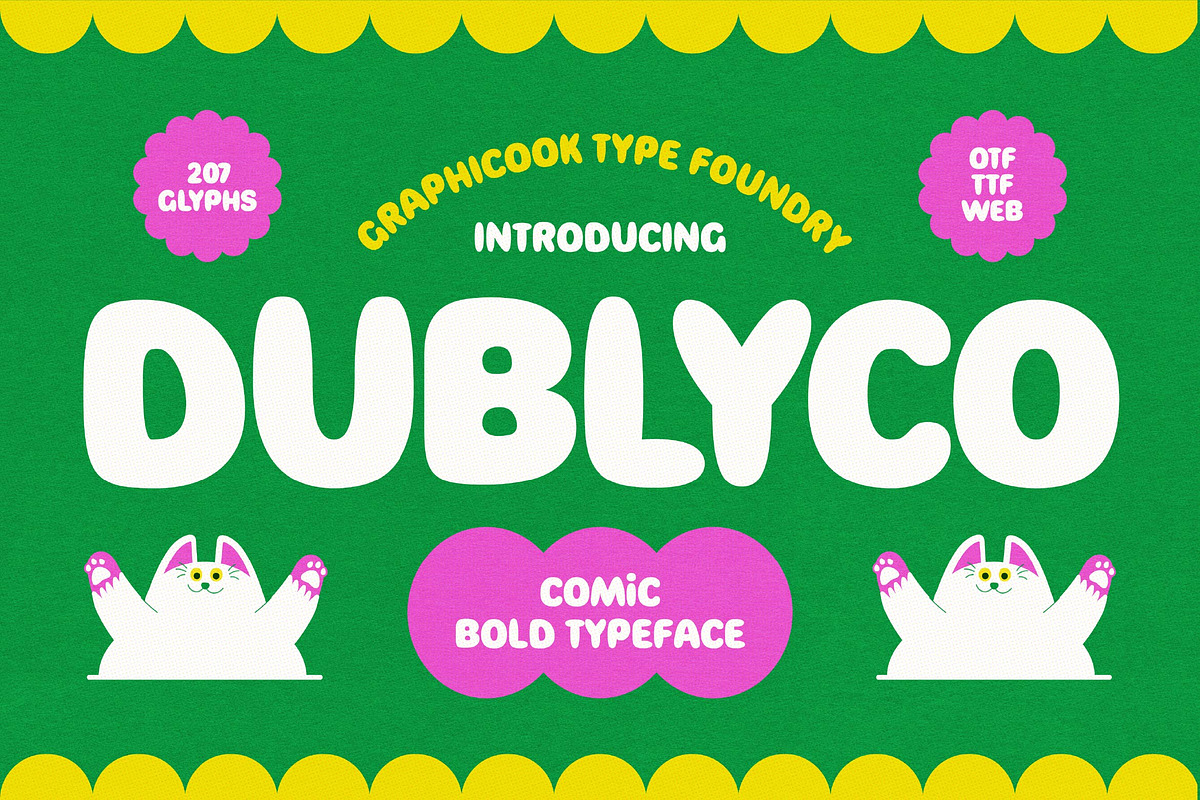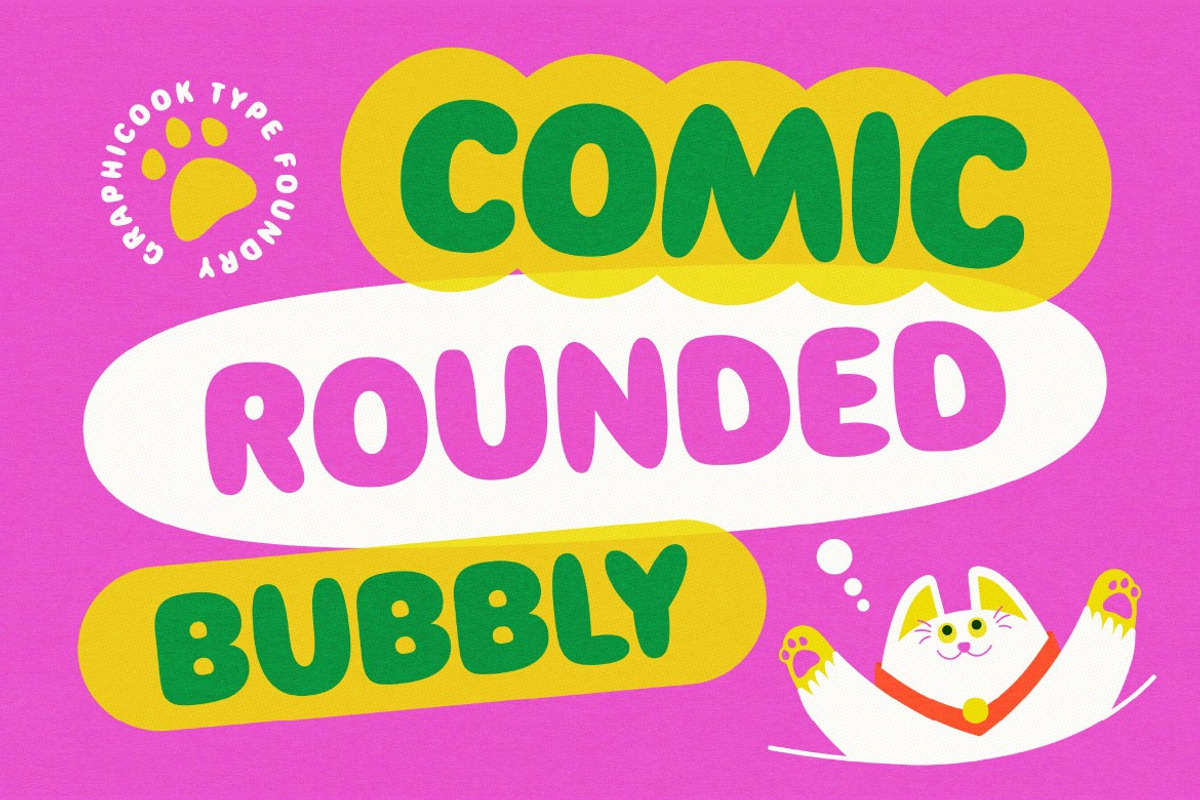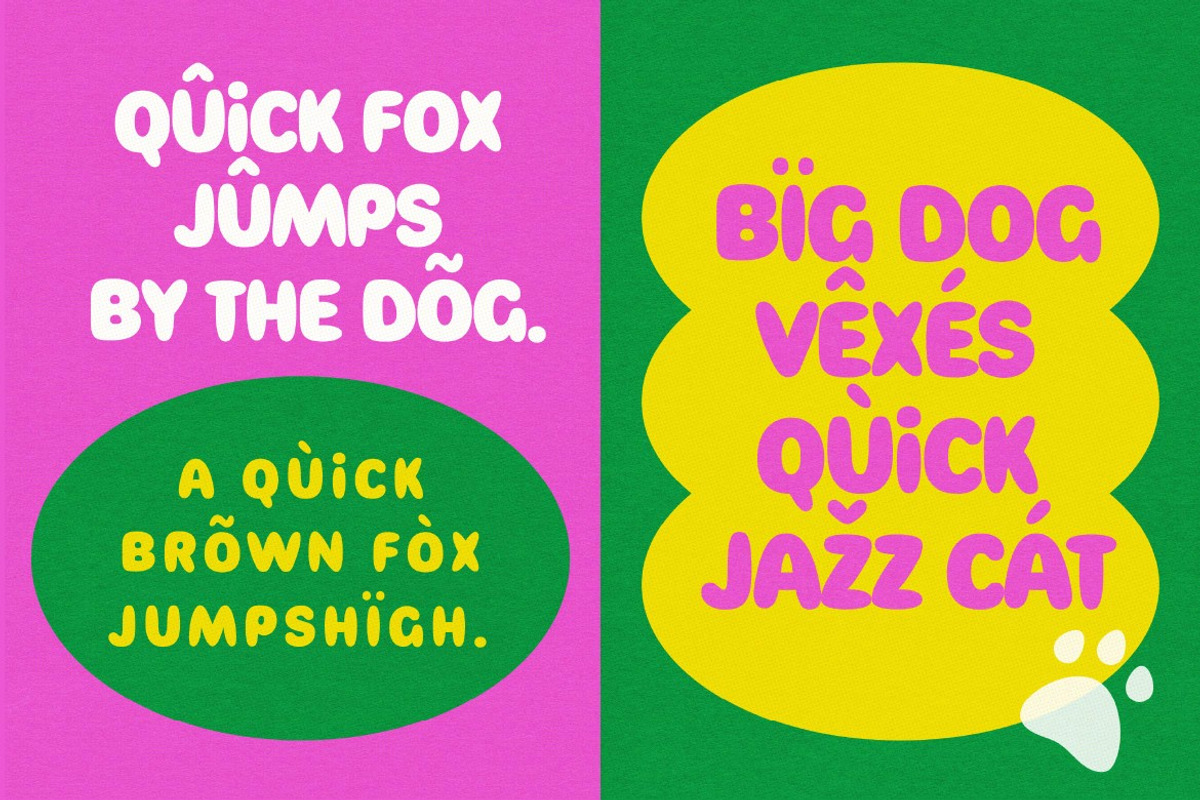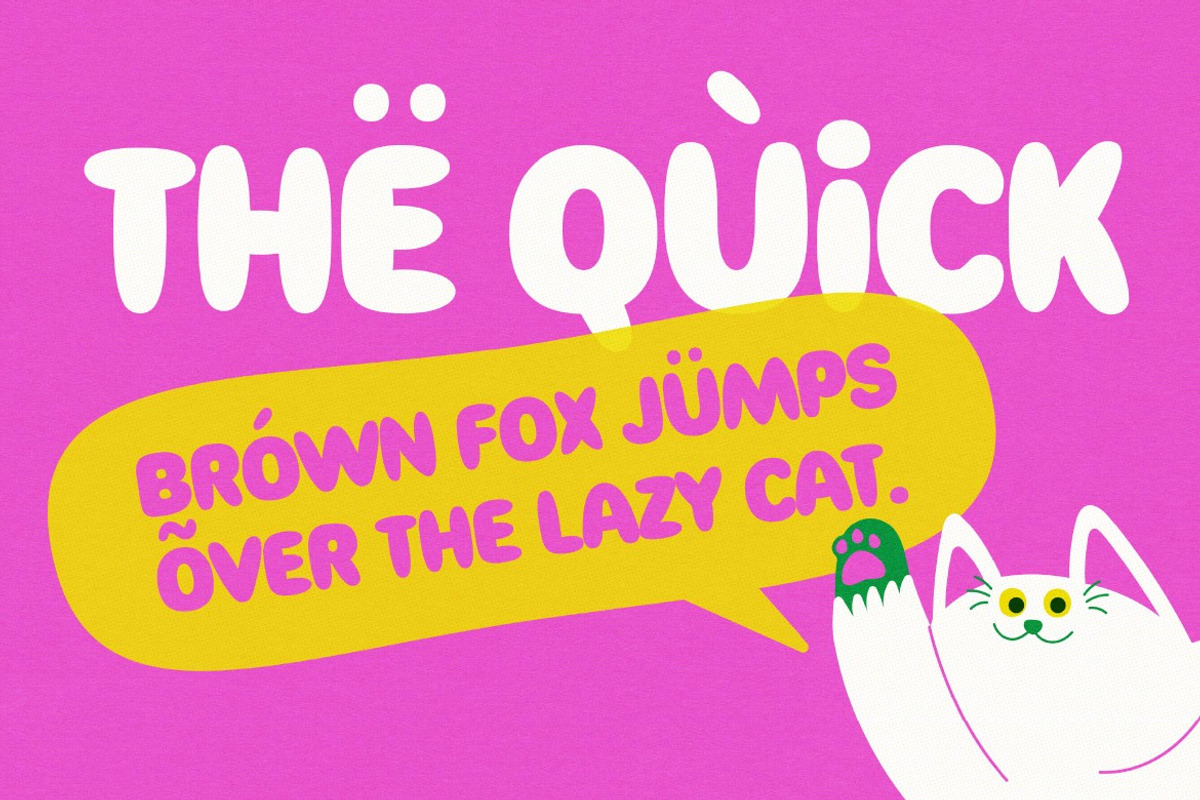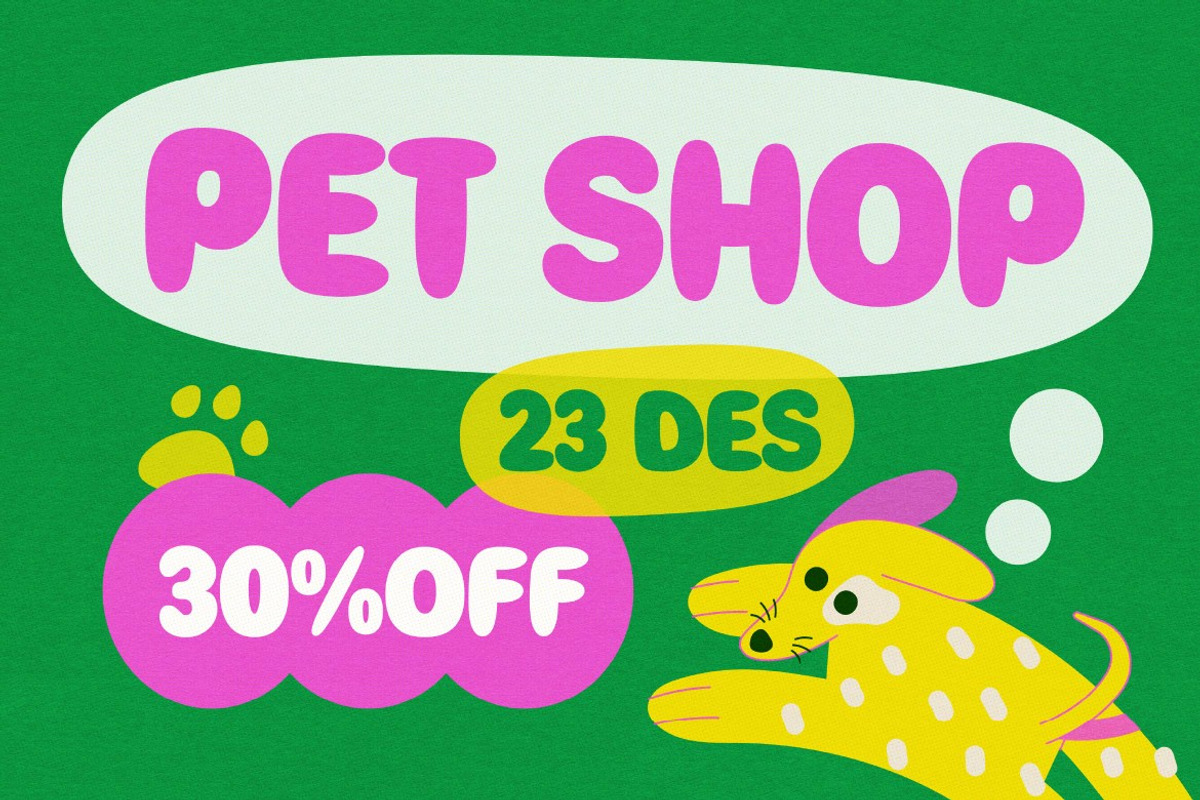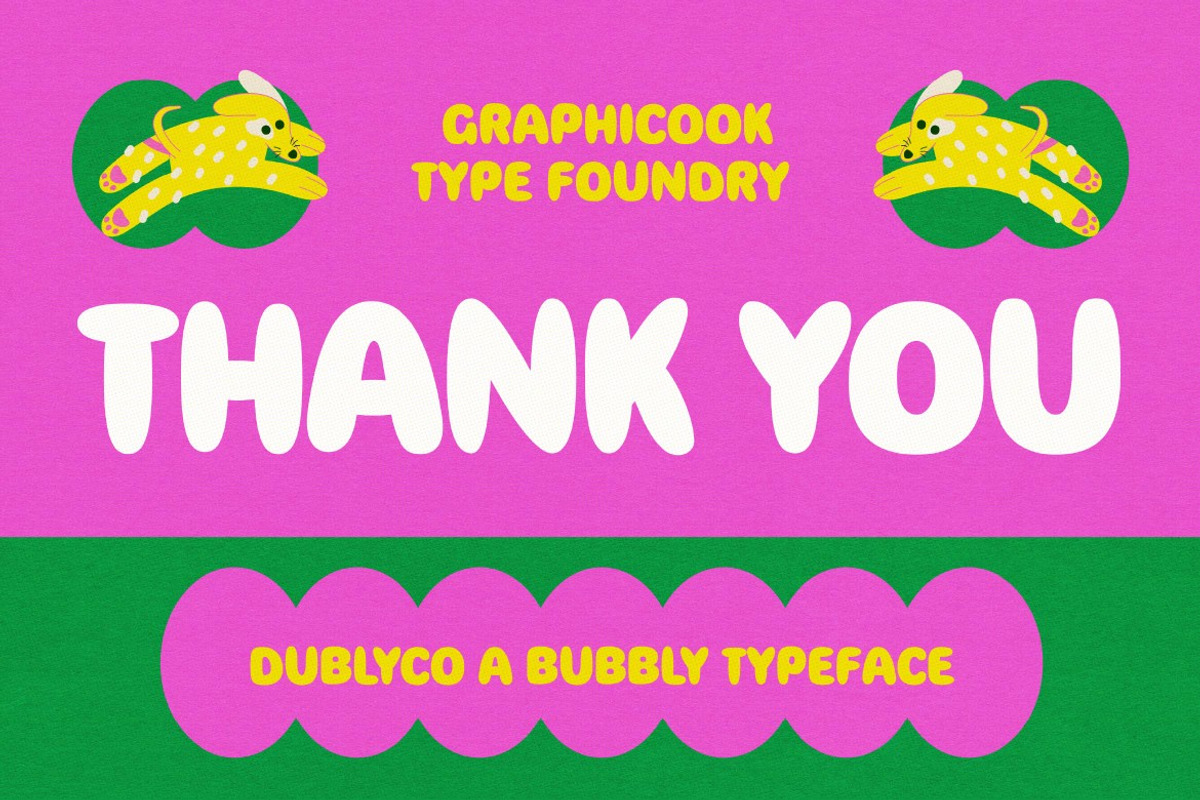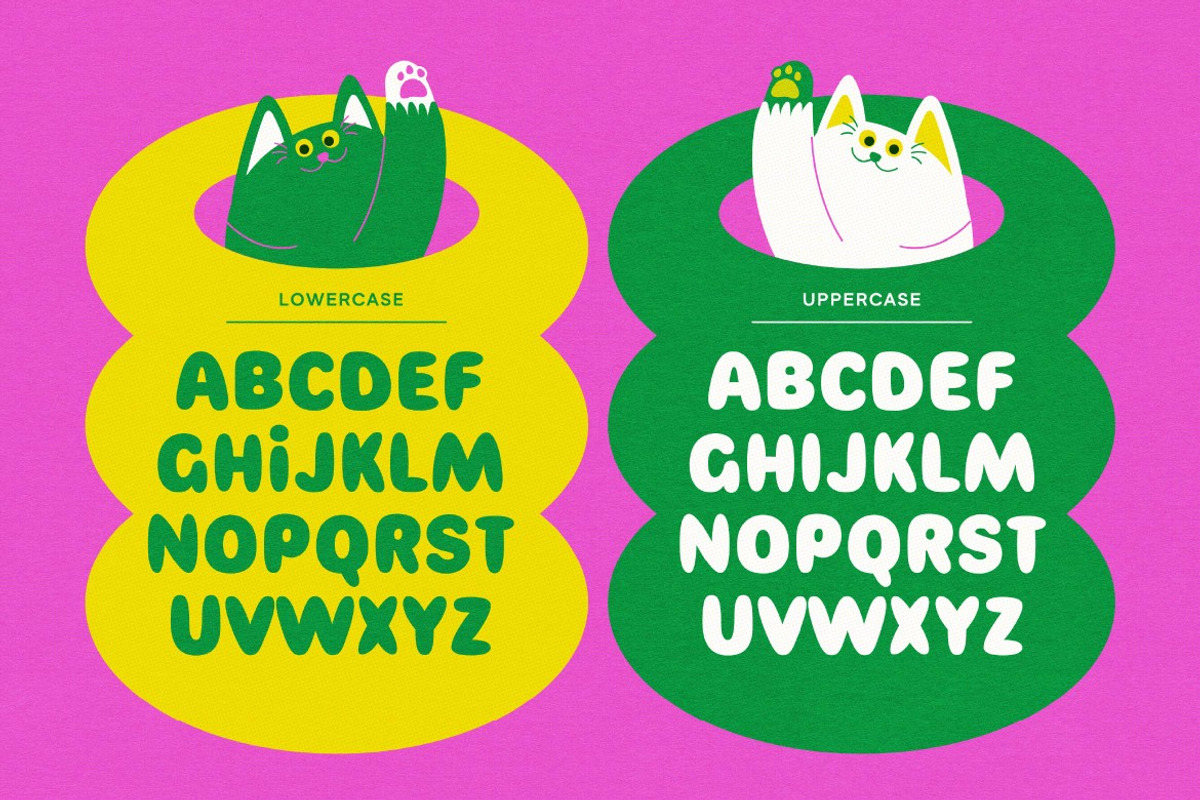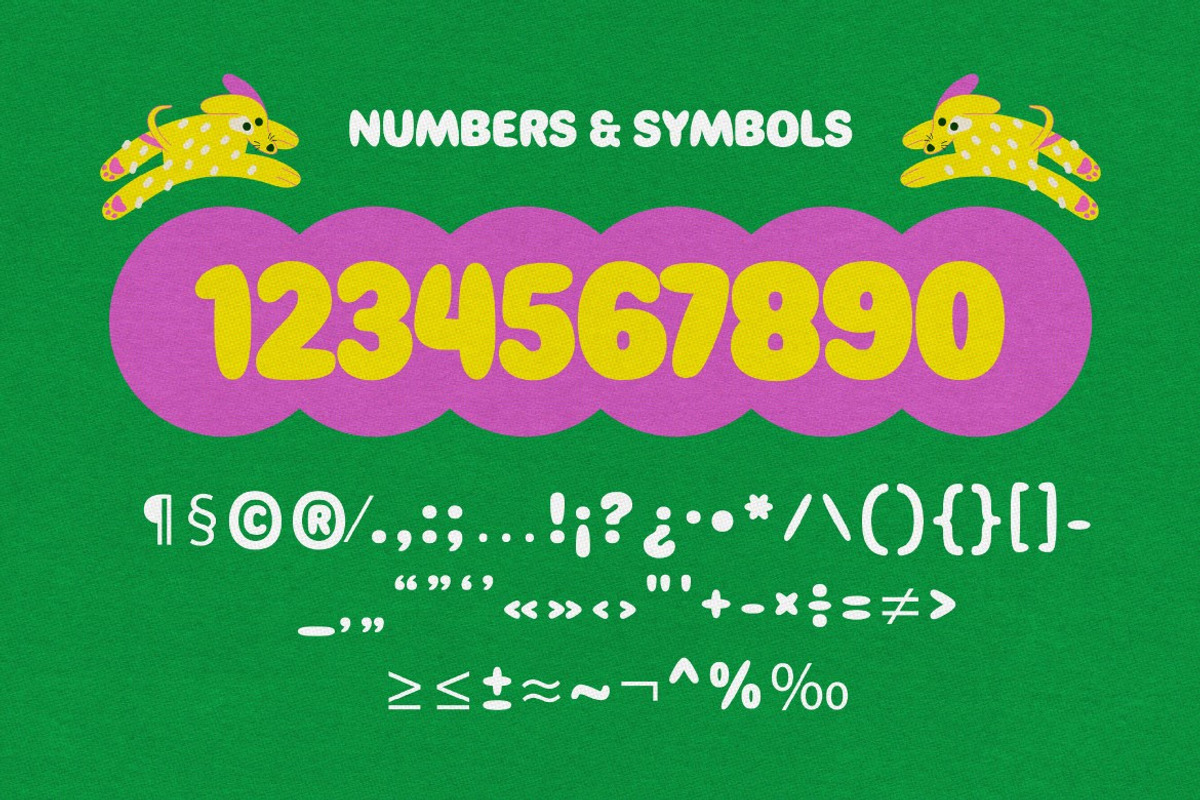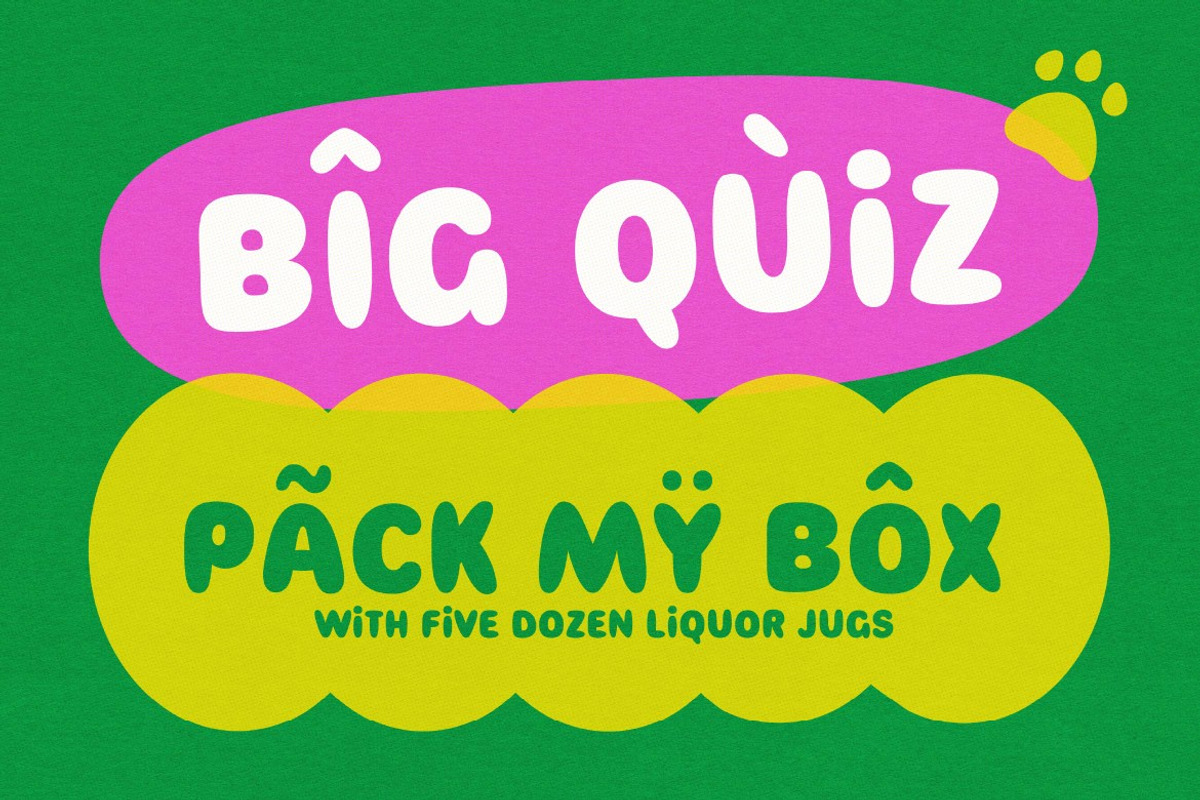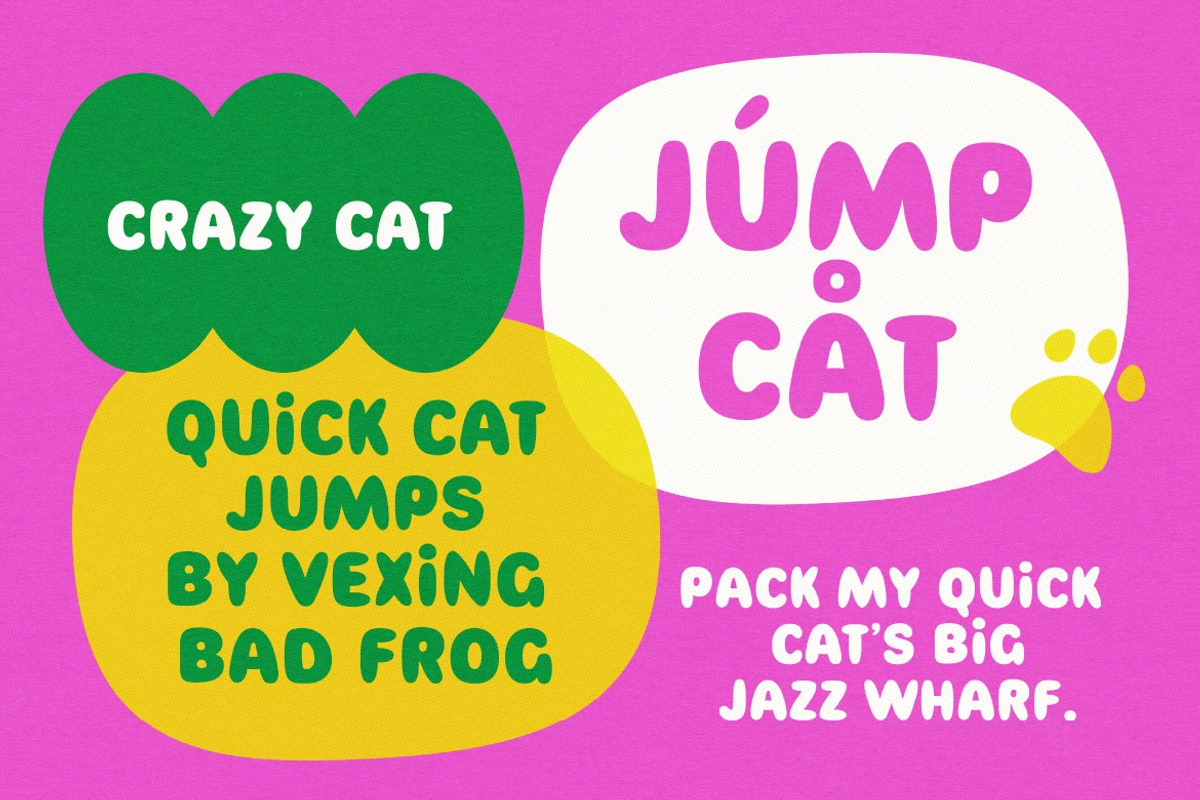
Dublyco
Dublyco is a bold, rounded font with bubbly, smooth shapes that radiate a fun and casual energy. Perfect for branding, posters, and designs with a lighthearted, playful aesthetic.
It is perfect for headlines, logotypes, magazines, packaging, quotes, movies, games, cover albums, book covers, and flyers, it's a perfect solution for creating eye-catching designs that stand out in any context.
by Graphicook